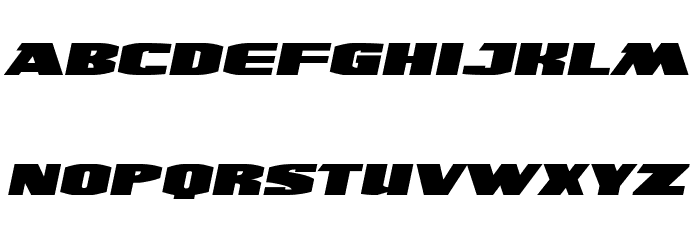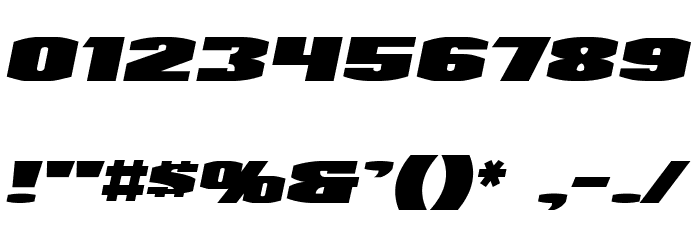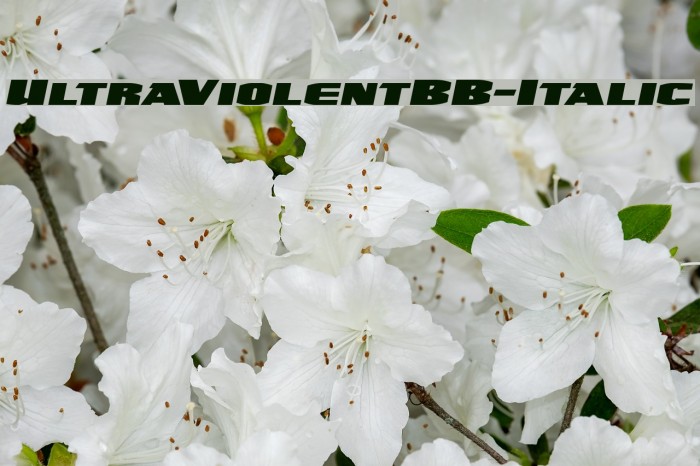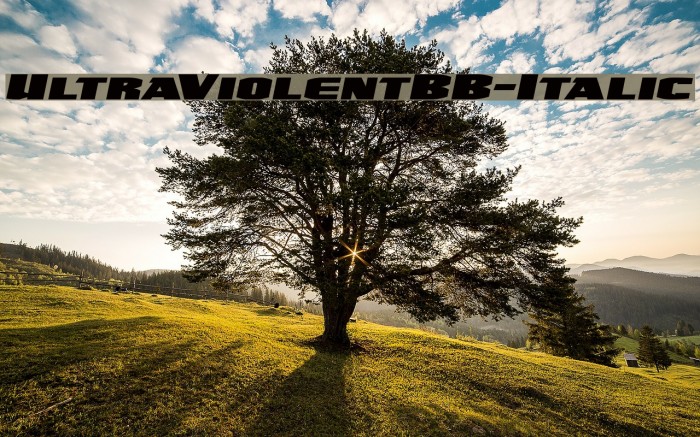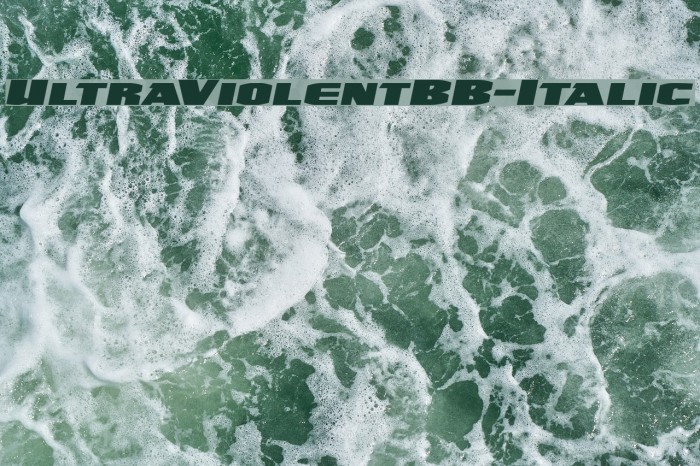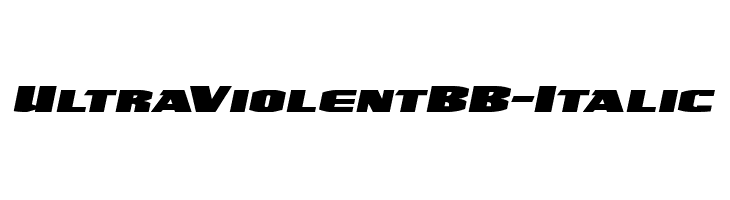
UltraViolentBB-Italic Font
This font exhibits a bold and aggressive style, characterized by its thick, angular strokes and italicized slant. The uppercase and lowercase letters share a uniform width, creating a cohesive and impactful appearance. The numbers and special characters maintain the same boldness, ensuring consistency across all glyphs. The font's design is reminiscent of a futuristic or sci-fi aesthetic, making it ideal for projects that require a strong visual impact. Its unique style is both eye-catching and memorable, suitable for use in dynamic and energetic contexts.
Bold, italicized font with angular strokes and a futuristic style.
- Proposed Projects: Ideal for video game titles, movie posters, or branding for tech companies.
- Overall Style: Futuristic, Dynamic